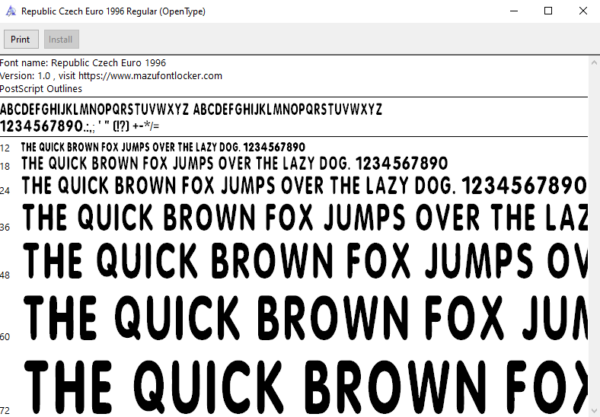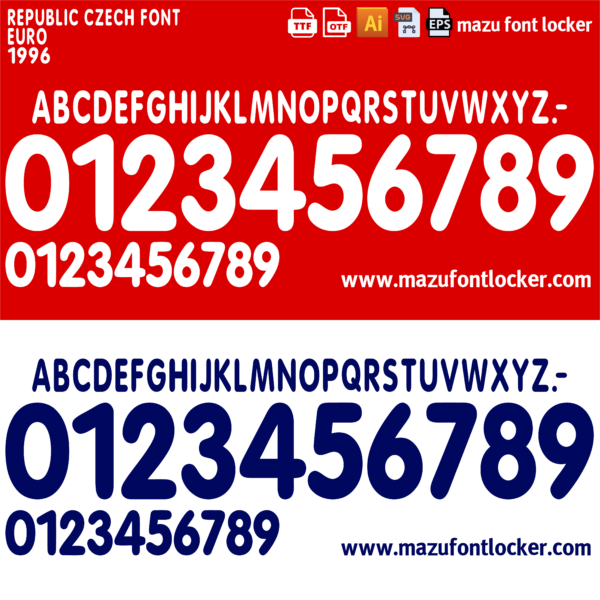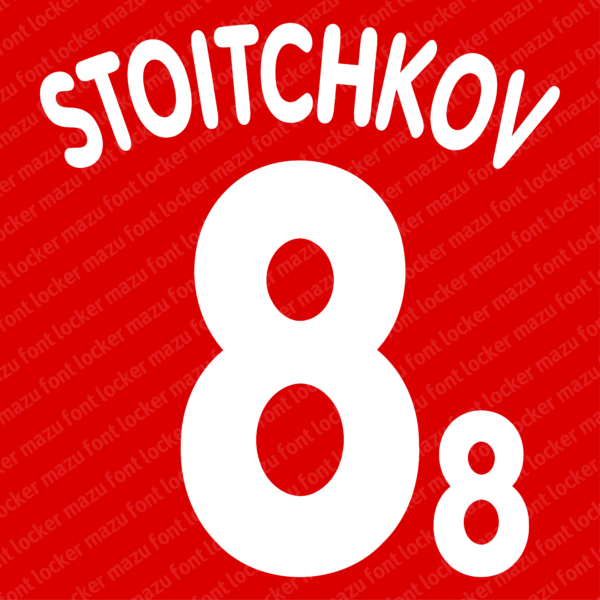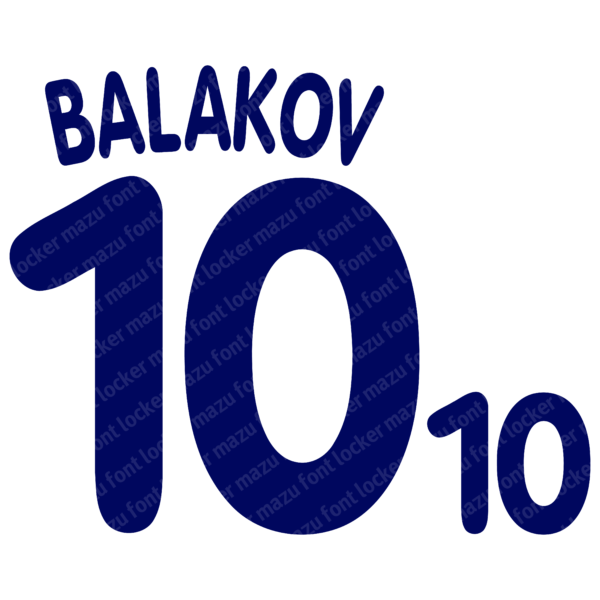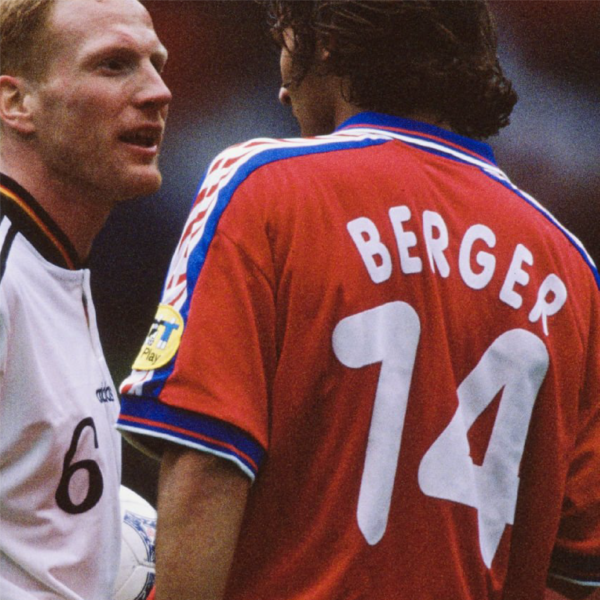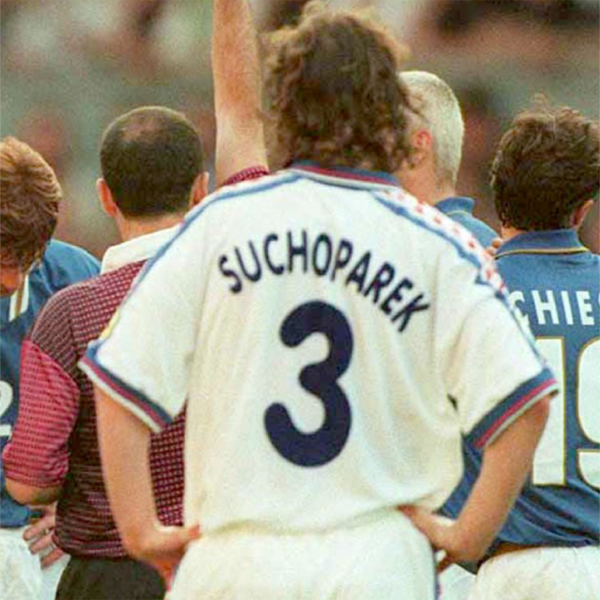
Republic Czech Euro 1996 Font Vector – Legendary Czech Icon
Download authentic Republic Czech Euro 1996 Font! Capture the magic of one of football’s most iconic tournaments with the Republic Czech Euro 1996 Font, a premium football jersey font vector that perfectly recreates the official lettering and numbering style of the legendary Czech national team. This high-quality vector set brings back the golden era of Czech football with sharp, authentic, and professional details.
The Republic Czech Euro 1996 Font is meticulously designed for designers, football fans, jersey customizers, and collectors who want to honor the unforgettable run of the Czech Republic at Euro 1996. Every letter and number has been carefully crafted to deliver the bold, elegant, and timeless aesthetic that defined that legendary campaign, featuring stars like Pavel Nedvěd and Karel Poborský.
Whether you’re creating custom jerseys, retro posters, sublimation prints, or nostalgic football artwork, the Republic Czech Euro 1996 Font gives your designs unmatched authenticity and championship heritage. Elevate your projects with this classic masterpiece from one of Europe’s most technically brilliant teams in history.
Republic Czech Euro 1996 Font Vector
The Republic Czech Euro 1996 Font is a premium, high-precision football jersey font vector meticulously crafted to replicate the official bold lettering and commanding numbering style of the iconic 1996 season.
Inspired by the legendary Czech Golden Generation kit, this font delivers a sharp, elegant, and fearless match-day presence that radiates the team’s rich football heritage, technical brilliance, and unforgettable Euro 1996 spirit. Every letter and number has been painstakingly recreated with exceptional detail to capture the clean, powerful, and timeless aesthetic that defined one of Europe’s most technically gifted teams in history.
Perfect for professional designers, dedicated football fans, jersey customizers, sublimation projects, and high-end creative work — whether for digital designs or premium printing.
• Authentic Euro 1996 Republic Czech jersey lettering style
The authentic lettering style helps recreate the classic look of the Republic Czech Euro 1996 kit with professional accuracy.
Unlike generic jersey fonts, this set is designed with a strong focus on authenticity and accuracy. Every detail is based on the original match lettering style used during the Euro 1996, helping designers and collectors create realistic football shirt designs.
This Republic Czech Euro 1996 font vector set is designed for authentic football jersey customization and works perfectly for retro football projects, collector designs, and professional sportswear artwork.